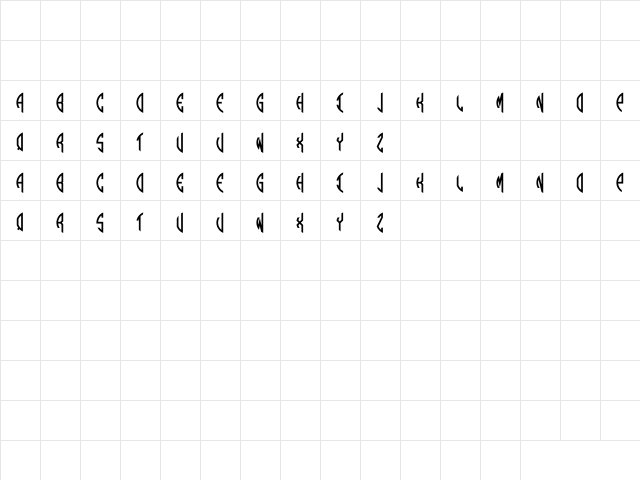
Round_Monogram_Left Regular
Design Context for Round_Monogram_Left Typeface
Round_Monogram_Left brings the precise, column-aligned rhythm of monospaced typography to designs that value technical clarity and systematic order.